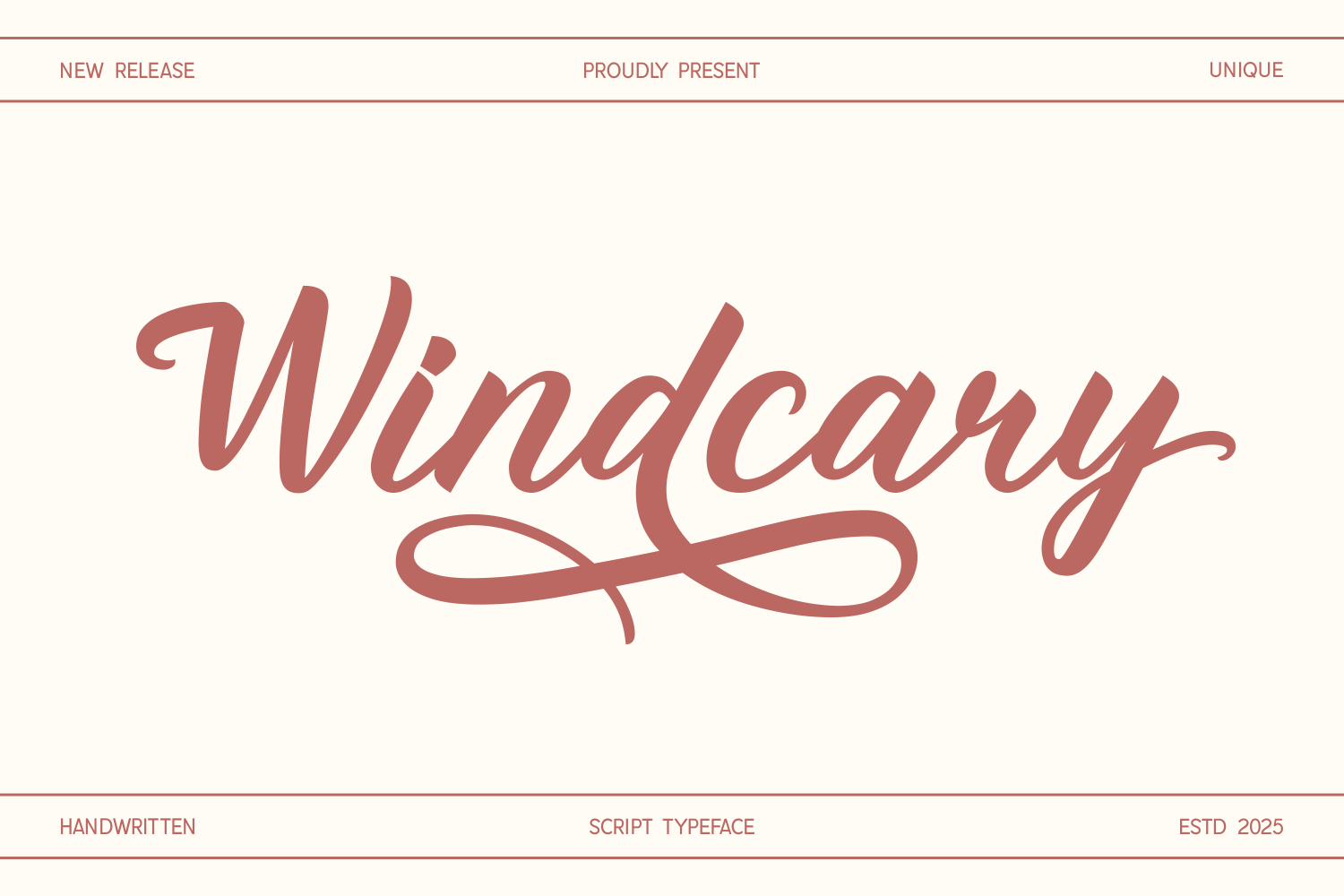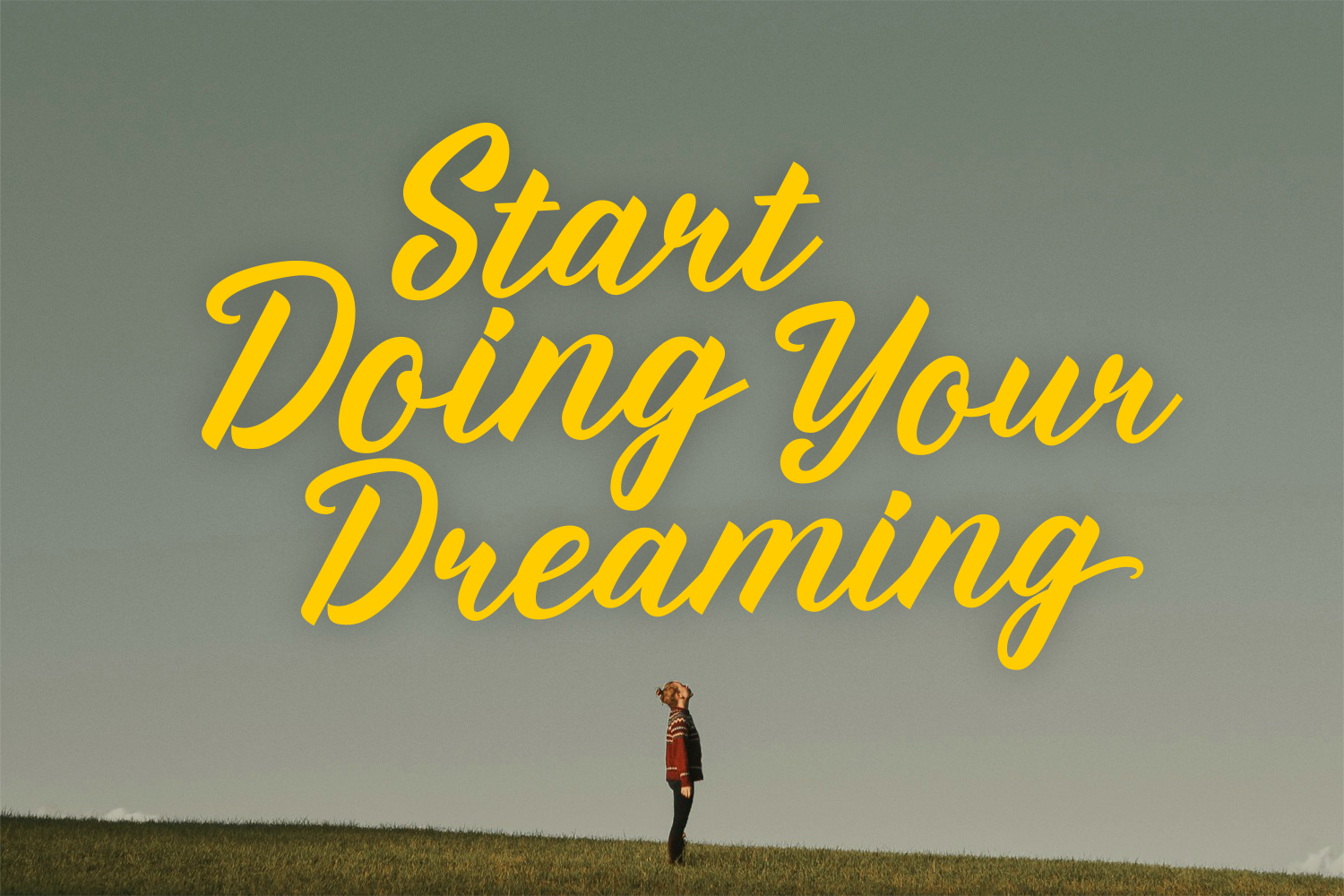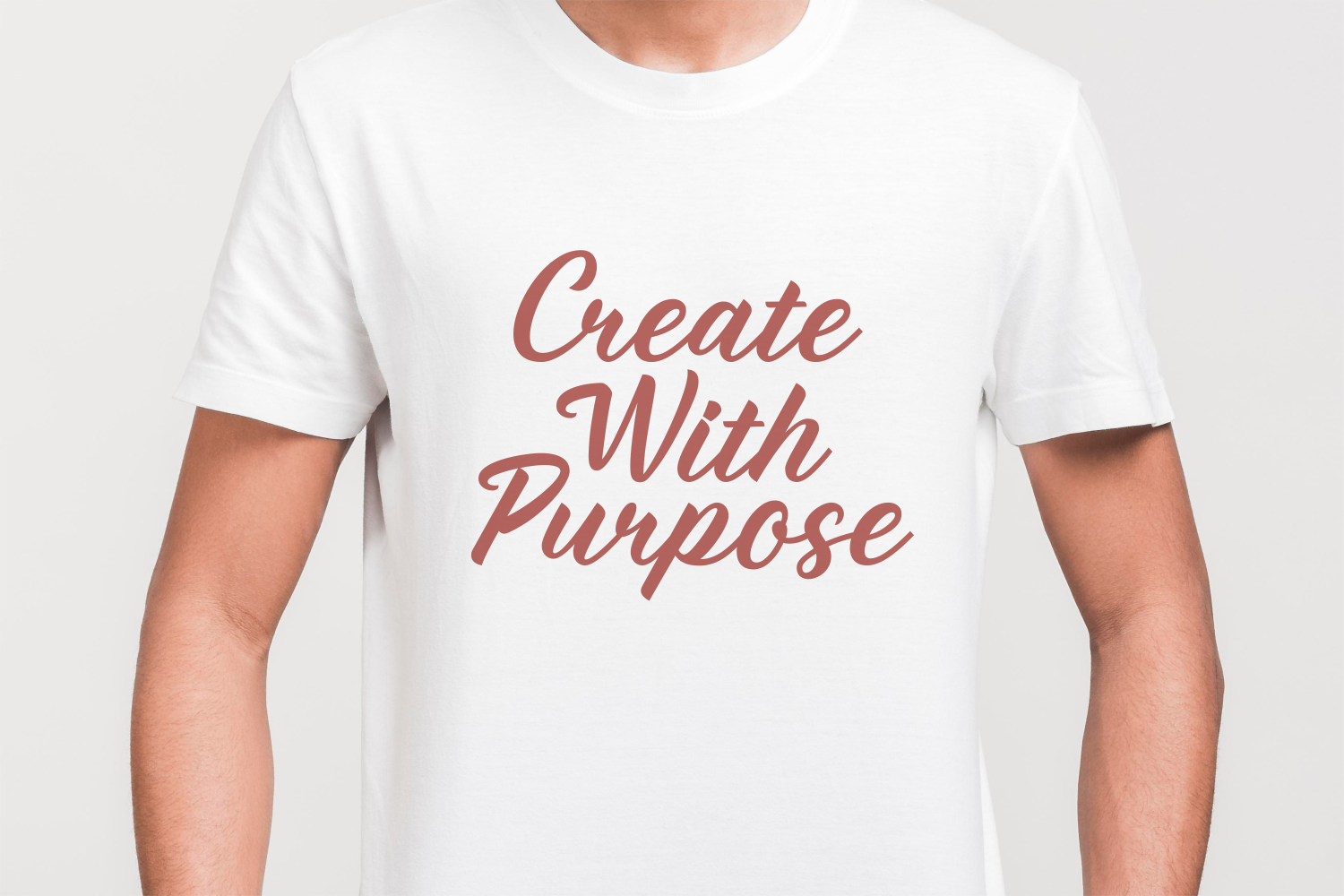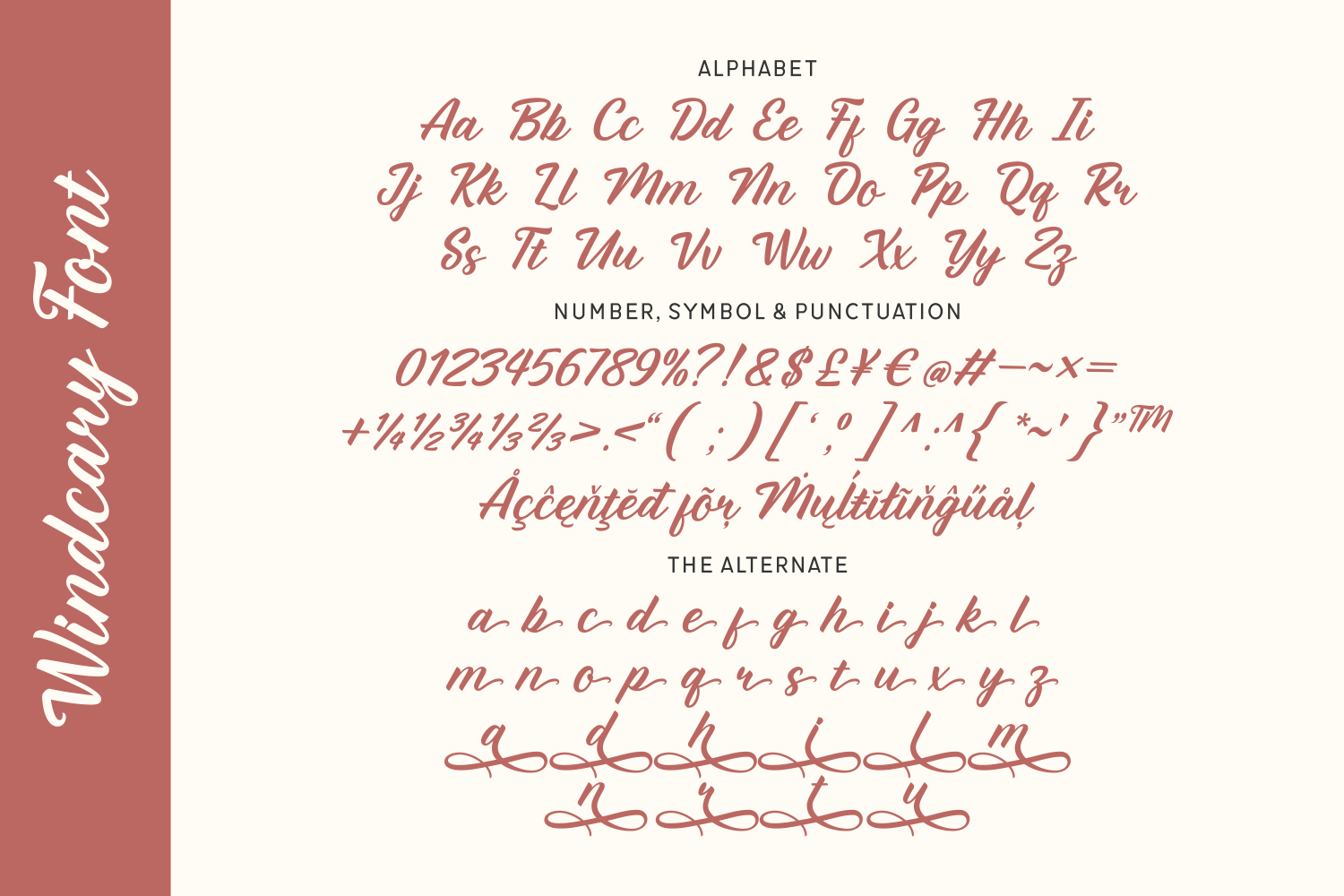
Windcary is a stylish handwritten script font with a bold yet graceful flair. Its flowing strokes and elegant swashes make it a perfect choice for branding, packaging, wedding invitations, and editorial titles. Windcary effortlessly blends vintage charm with modern appeal.